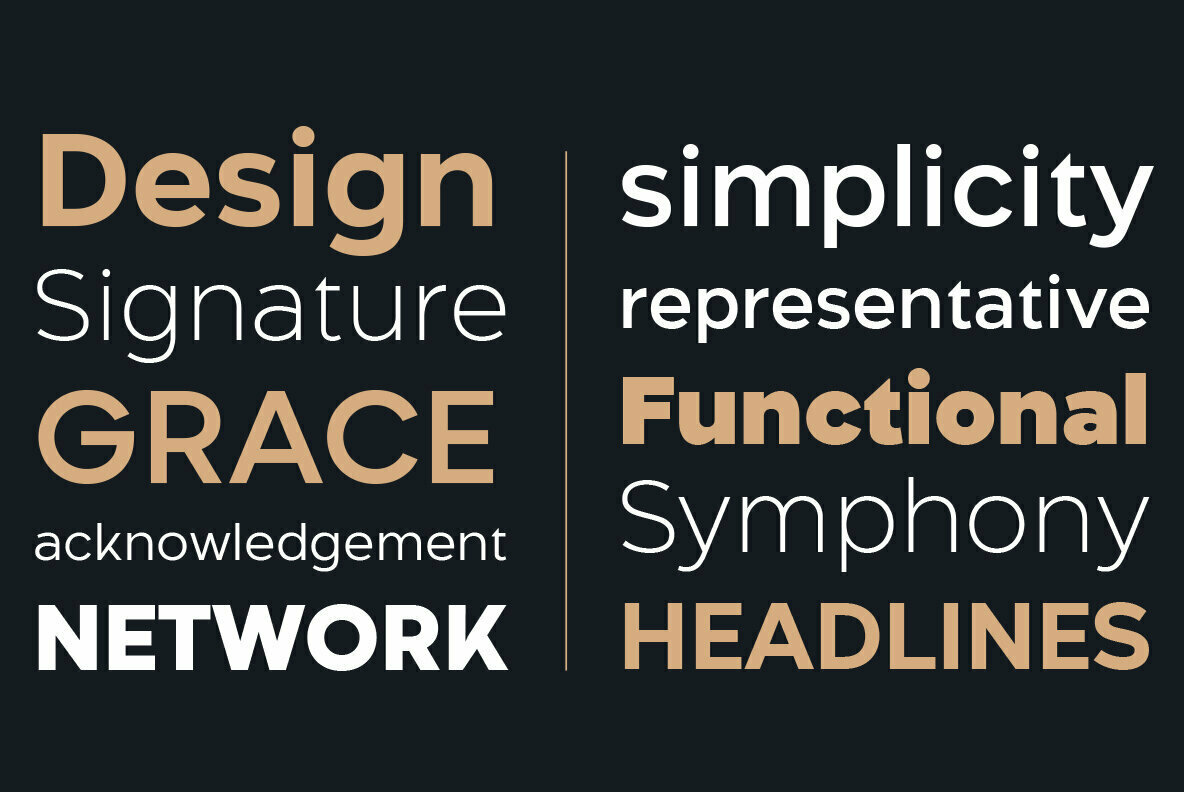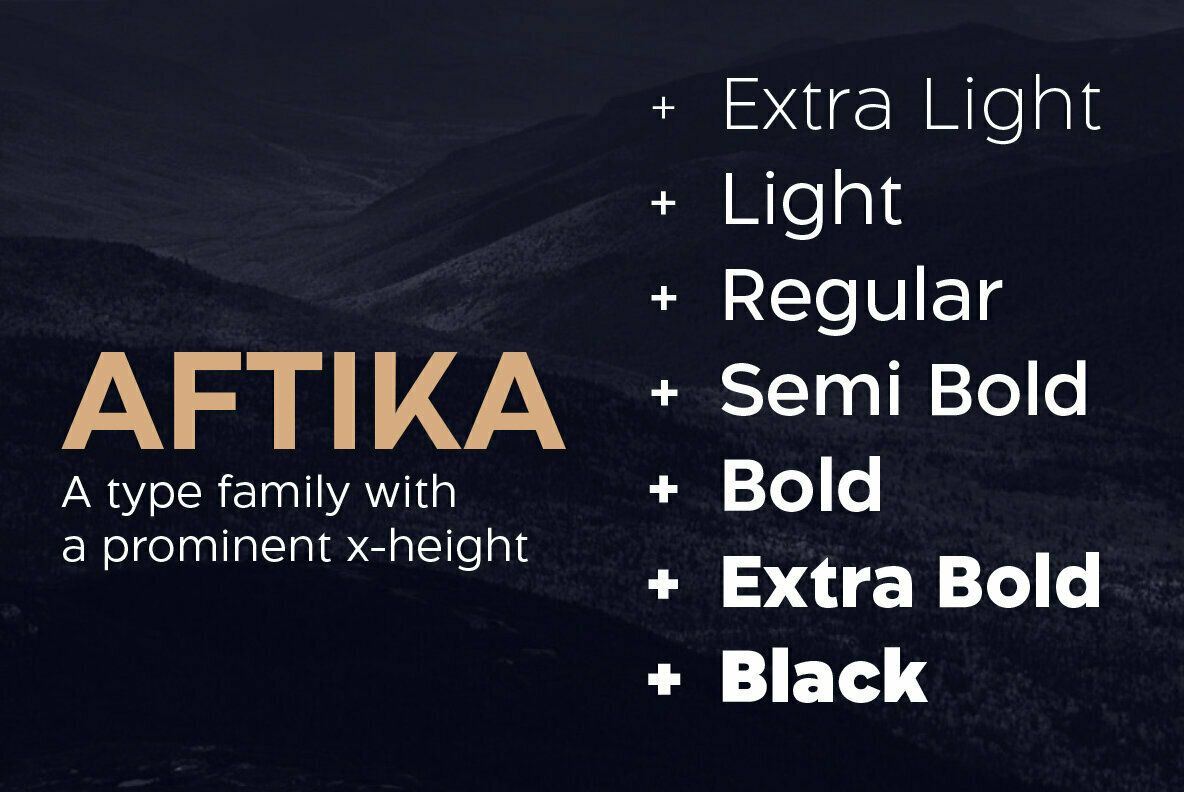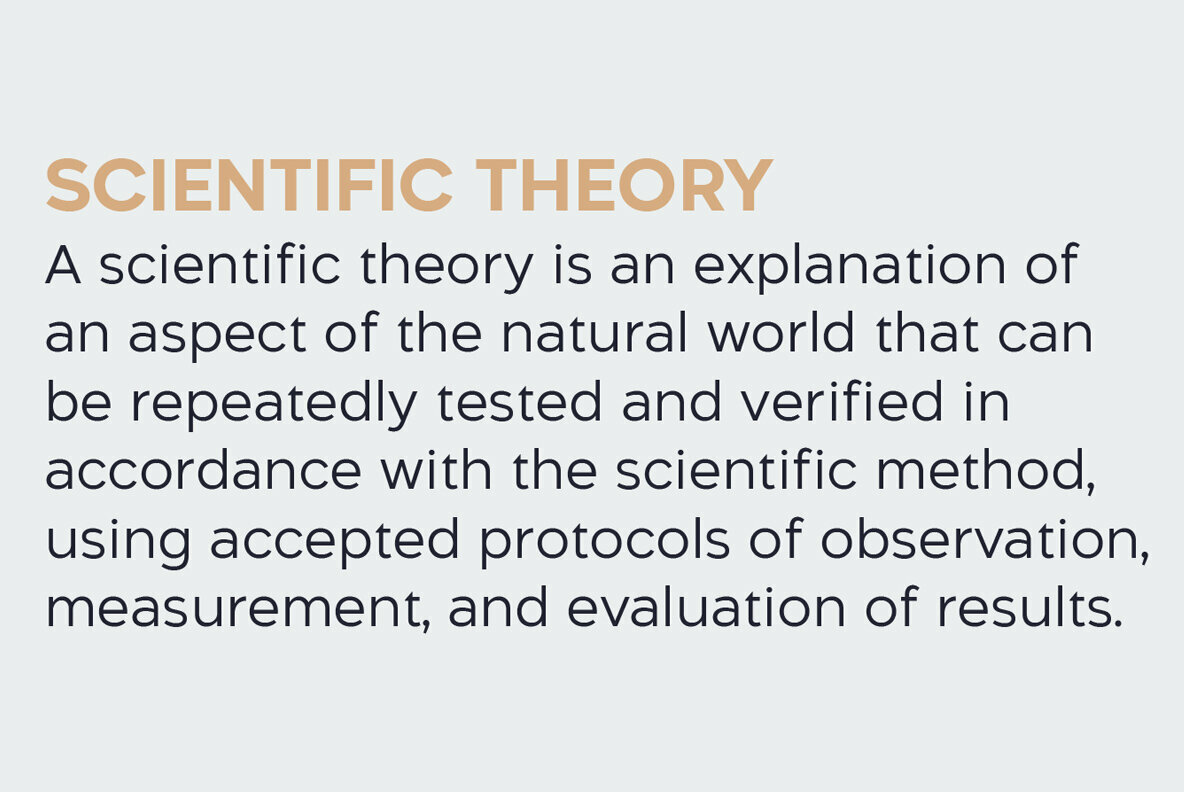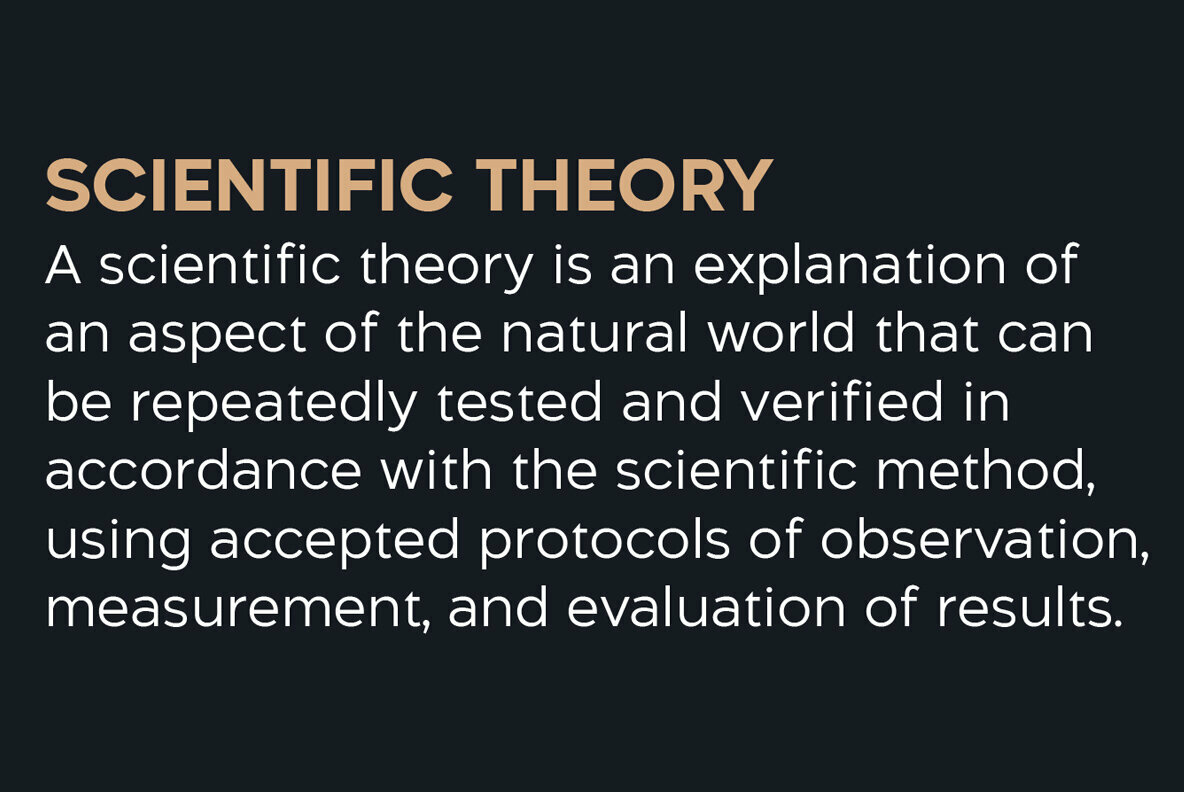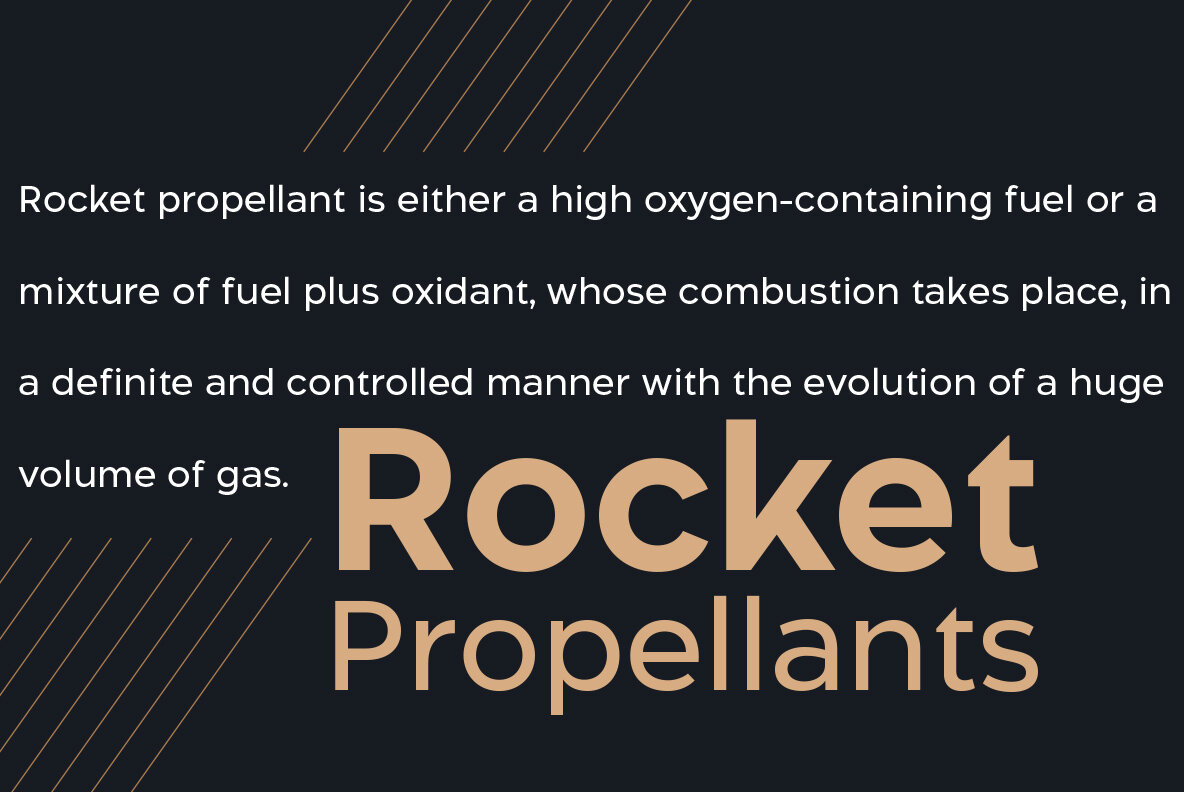
Aftika Font
Aftika is a clean geometric sans serif family of seven weights. Characterized by a prominent x-height, it is well suited for advertising, packaging, editorial and publishing, logos, branding, posters, billboards, signage as well as for small text for print or digital screens.
Deepak Singh Dogra’s work embodies a distinctly modern approach to typography, blending expressive cultural nuance with disciplined design. His typefaces often merge contemporary structure with traditional character, reflecting his deep understanding of visual storytelling across scripts and styles. Known for...